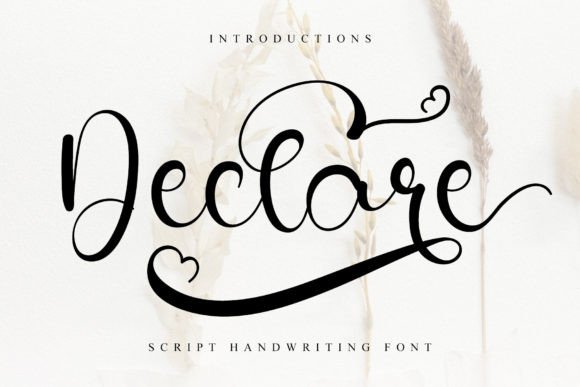
Introducing Declare Font: The Elegant and Delicate Handwritten Typeface for Your Design Needs
In the world of typography, a well-crafted font can elevate your design and make it stand out from the crowd. If you’re looking for a typeface that exudes elegance and delicacy, look no further than Declare Font. This beautiful handwritten font is perfect for a variety of design needs, including logos and branding, social media posts, advertisements, business cards, wedding invitations, product design, and more.
What Makes Declare Font Special?
Declare Font is a stunning example of a handwritten typeface that is both elegant and delicate. Its unique characters and flowing lines make it perfect for designs that require a touch of sophistication and refinement. Whether you’re looking to create a logo, social media post, or wedding invitation, Declare Font is the perfect choice.
Key Features of Declare Font
- Elegant and Delicate: The font’s elegant and delicate design makes it perfect for a variety of design applications, from logos and branding to social media posts and wedding invitations.
- Handwritten Typeface: Declare Font is a handwritten typeface that adds a personal touch to your designs. Its unique characters and flowing lines make it stand out from more traditional typefaces.
- Versatile: Declare Font is versatile and can be used for a wide range of design applications, including logos, branding, social media posts, advertisements, business cards, wedding invitations, product design, and more.
Why Choose Declare Font?
There are many reasons why Declare Font is an excellent choice for your design needs. Here are just a few:
- Unique Design: Declare Font has a unique design that will set your designs apart from the crowd. Its elegant and delicate lines make it perfect for designs that require a touch of sophistication.
- High-Quality: Declare Font is a high-quality font that is designed to deliver exceptional results. Its elegant and delicate design makes it perfect for professional designs.
Design Applications for Declare Font
Declare Font is a versatile font that can be used for a wide range of design applications. Here are some examples:
- Logos and Branding: Declare Font is perfect for logos and branding. Its elegant and delicate design makes it ideal for creating a professional and sophisticated brand image.
- Social Media Posts: Use Declare Font to create stunning social media posts that will grab the attention of your followers.
- Advertisements: Declare Font is perfect for advertisements. Its unique design makes it stand out from more traditional typefaces.
- Business Cards: Use Declare Font to create professional and elegant business cards.
- Wedding Invitations: Declare Font is perfect for wedding invitations. Its elegant and delicate design makes it ideal for creating beautiful and sophisticated invitations.
- Product Design: Use Declare Font to create stunning product designs that will showcase your products in the best possible light.
Tips for Using Declare Font
Here are some tips for using Declare Font:
- Use it Sparingly: Use Declare Font sparingly to create a greater impact. You can use it for headings or titles to add a touch of elegance and sophistication.
- Experiment with Colors: Experiment with different colors to find the one that works best for your design.
- Mix and Match: Mix and match Declare Font with other fonts to create a unique and interesting design.
- Pay Attention to Kerning: Pay attention to kerning to ensure that your text is evenly spaced and looks professional.
Declare Font is a beautiful and elegant handwritten typeface that is perfect for a variety of design needs. Its unique design, ease of use, and versatility make it an excellent choice for designers. Whether you’re looking to create a logo, social media post, or wedding invitation, Declare Font is the perfect choice. So why wait? Download Declare Font today and start creating stunning designs!